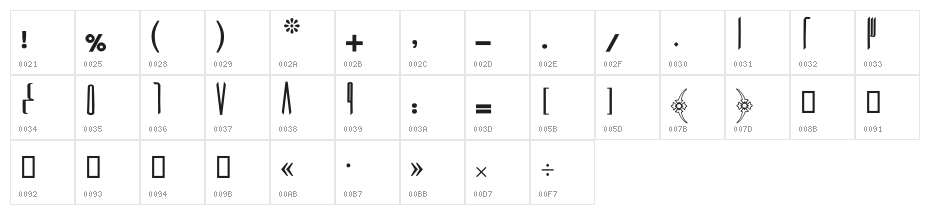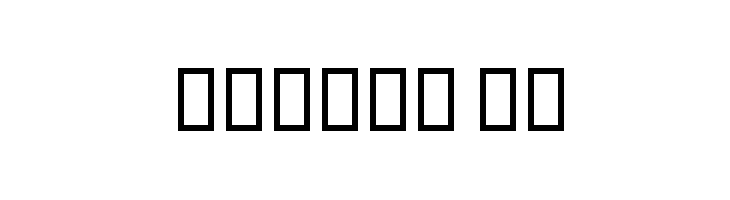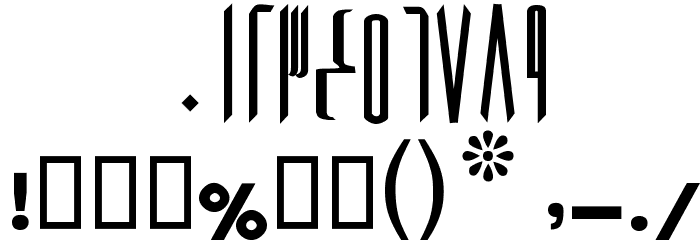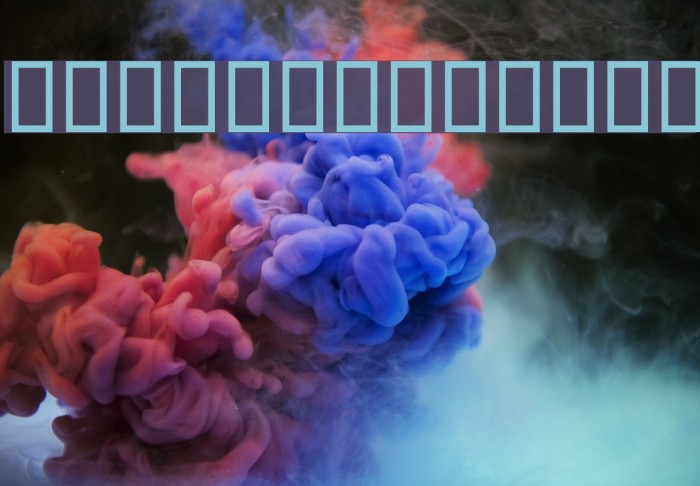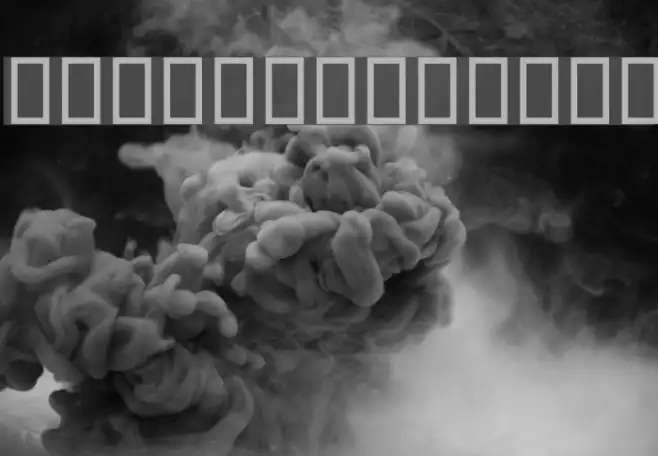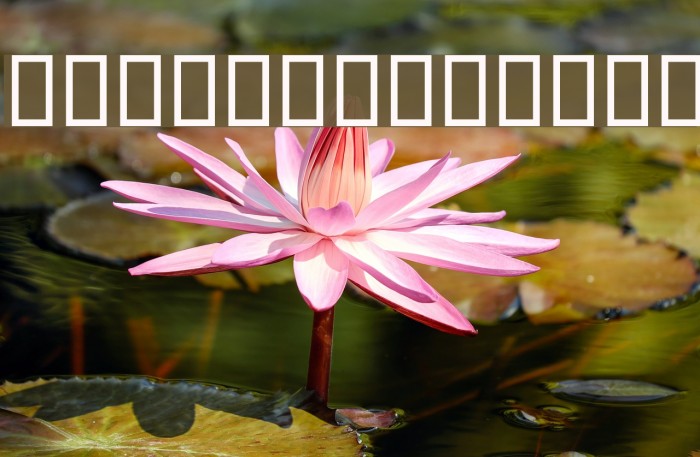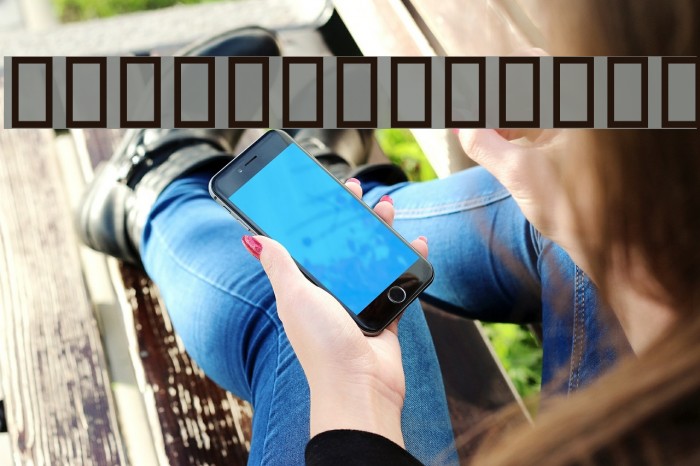
Baarik II Font
Baarik II Description
This font features a highly decorative and artistic style, characterized by its elongated and angular letterforms. The strokes are sharp and pointed, giving it a futuristic and avant-garde appearance. The characters are uniquely stylized, with some letters incorporating unexpected curves and angles, adding to its distinctiveness. The numbers and special characters follow the same design principles, ensuring a cohesive look throughout. This font is designed to stand out and make a bold statement, suitable for creative and modern applications.
| Proposed Projects | Ideal for use in branding, poster design, album covers, and any project that requires a bold and artistic touch. |